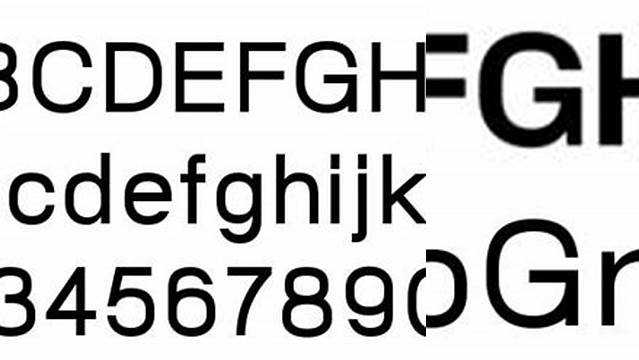
Neogram Heavy Font: Free Download & Usage Guide
Are you on the hunt for a font that screams boldness and commands attention? Look no further, guys! The Neogram Heavy font is a fantastic choice that can transform your design projects from ordinary to extraordinary. In this comprehensive guide, we'll dive deep into the world of Neogram Heavy, exploring why it's a favorite for designers, where you can snag a free download, and how to best utilize it to create stunning visuals. We'll cover everything, from its distinctive characteristics to the perfect use cases and tips on maximizing its impact.
What Makes Neogram Heavy Font Stand Out?
Neogram Heavy isn't just another font; it's a statement. Its defining features include its robust, weighty appearance, which makes it incredibly legible and impactful, especially in large sizes. The font typically boasts a clean, modern design that leans towards the geometric. This isn't just about aesthetics, guys; it's about making sure your message hits home. Because of its thickness, Neogram Heavy has a unique ability to grab eyeballs. Think about it: in a world saturated with information, you need a font that stands out. The bold strokes and solid structure of Neogram Heavy make it perfect for headlines, titles, and any text that needs to be noticed. When you choose Neogram Heavy, you're choosing a font that says, "Look at me!" It is this inherent visual weight that makes it a go-to for designers aiming for a strong, confident aesthetic. The letterforms are typically designed with simplicity in mind, which adds to its modern appeal and makes it incredibly versatile. This versatility means you can use it across a wide range of projects, from website headers to print advertisements. The clean lines and bold presence allow it to adapt to various design styles and still make an impact. It’s a font that is not only visually appealing but also practical for those who need to communicate with clarity and authority. For designers, the character of Neogram Heavy provides the ability to establish a brand presence, a visual anchor that can be used across multiple platforms. The consistent use of Neogram Heavy can quickly establish your brand's identity, making your message more recognizable and memorable. The bold nature of the font is not just an aesthetic choice, but a powerful branding tool. By implementing Neogram Heavy, you are not just choosing a font; you are choosing a statement that will resonate with your target audience. It’s a font that will not just be seen, but remembered. This attention-grabbing quality makes it a top choice for anyone seeking a font that delivers both style and substance.
Best Use Cases for Neogram Heavy Font
Okay, you've got your Neogram Heavy font downloaded, now what? Knowing where to use it is just as important as getting it. The strength of this font makes it suitable for a variety of applications. It is a great choice when you want to create an instant impact and grab the attention of your audience. Here are some of the best use cases, guys:
- Headlines and Titles: This is where Neogram Heavy truly shines. Its boldness is perfect for headlines, titles, and subheadings that demand attention. Whether you're designing a website, a brochure, or a social media graphic, this font will ensure your message is front and center.
- Logos: Want a logo that's instantly recognizable and memorable? Neogram Heavy can deliver. Its clean lines and robust structure make it a great option for brands that want to project strength and stability.
- Posters and Flyers: If you're aiming for a design that pops, use this font for posters and flyers. Its readability is impressive even from a distance, making it a perfect pick for promotional materials.
- Website Banners and Graphics: Use it for website banners and other graphics. Its visual weight makes it ideal for drawing attention to important information. This will make the message clear and create a good impression on the visitors.
- Print Materials: Neogram Heavy is excellent for print materials, from magazines to brochures. The bold letters will show a great presence in print.
Basically, guys, any time you need a font that conveys power, authority, and clarity, Neogram Heavy is your go-to choice. Just remember to use it strategically and combine it with complementary fonts for body text to maintain a balanced look.
Tips for Using Neogram Heavy Font Effectively
Alright, you've got the font, you know where to use it, but how do you use it effectively? Here are some tips to maximize the impact of Neogram Heavy, ensuring your designs look top-notch.
- Pair it with Complementary Fonts: Don't use Neogram Heavy for everything. Pair it with a more subtle font for body text to create visual harmony. Think of a sans-serif or a clean serif font for your paragraphs. This will provide a great contrast and make your design easier to read. The key is balance.
- Consider the Size and Spacing: Because it's a heavy font, it's essential to pay attention to size and spacing. Don't make it too big. Ensure enough space is around your text so it can breathe and doesn’t feel cramped. Adjust the kerning (the space between individual letters) to make sure it's readable and visually appealing.
- Choose the Right Color Palette: Think about the color palette you use with this font. Neogram Heavy works best with high-contrast colors. A dark font on a light background, or vice versa, will make it pop. Also, make sure the colors align with your brand's overall aesthetic and the message you are trying to convey.
- Use it Sparingly: As much as you love this font, don’t overuse it. Stick to using it for headlines and key information. Overusing it can make your design look cluttered and overwhelm your audience.
- Test It Out: Before finalizing your design, test it on different devices and sizes to ensure it looks good everywhere. It's important to make sure the font remains readable and impactful across all platforms.
Conclusion: Embrace the Boldness of Neogram Heavy
So there you have it, guys. Neogram Heavy is an excellent choice for any design that wants to make a statement. From finding it as a free download to utilizing it effectively, you now have the tools and knowledge to get started. Remember to download from reputable sources, choose your use cases wisely, and follow the tips for optimal results. With the proper application, this font will undoubtedly elevate your designs and help you achieve your creative goals. So go out there and start making some bold designs. Happy designing!